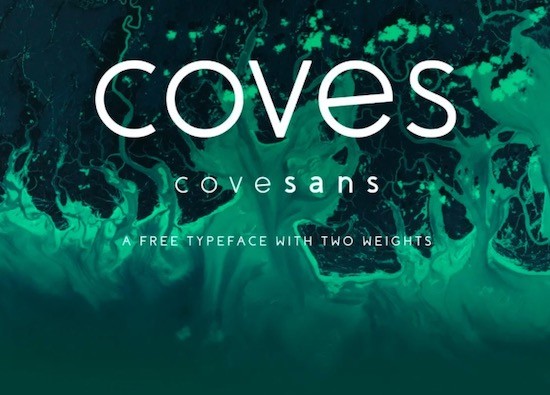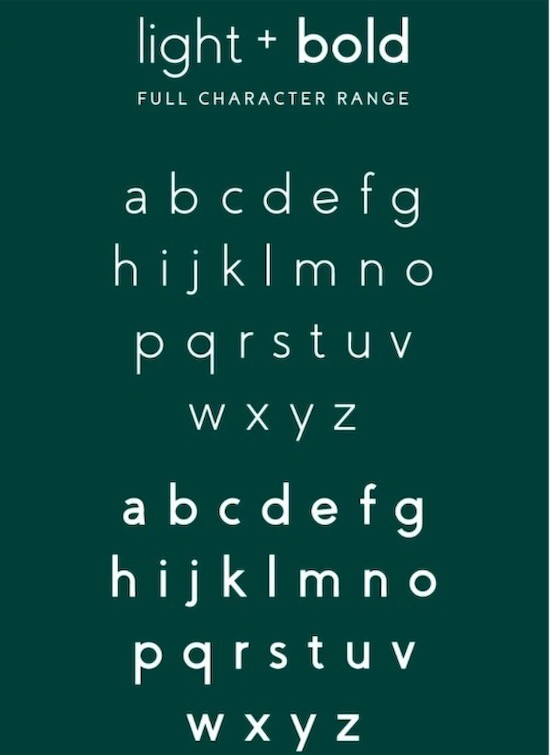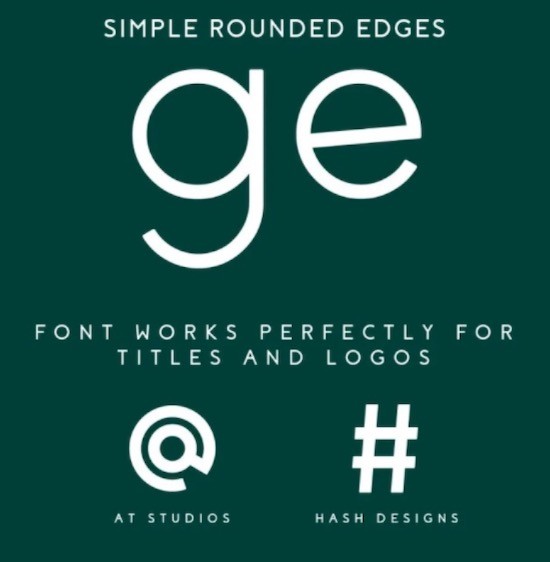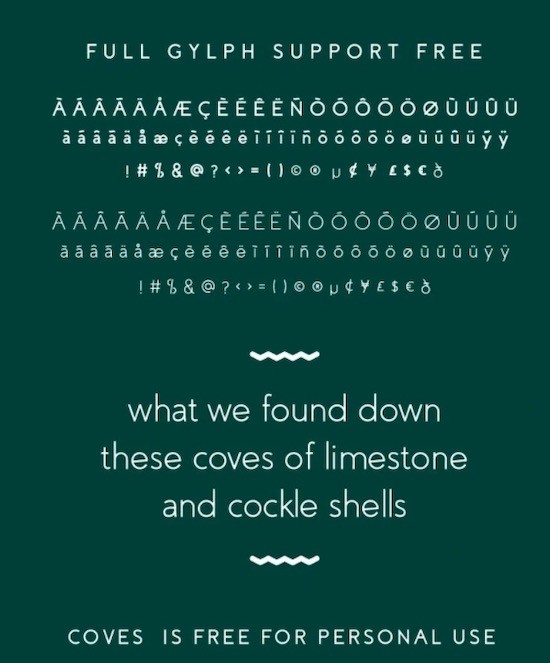
Coves Font
by Jack Harvatt
Coves font is a famous sans serif typeface. It’s a modern neat and clean typeface that been passionately designed for you and your colleague. This font is a gorgeous design tool for those looking for a perfect font with high legibility.
Coves font is a popular typeface and it has got too much popularity in no time. This font was created and released by Jack Harvatt with 2 unique weights are bold and light.
Coves font is very suitable for use with luxury, elegant, and premium needs such as restaurants, salons, cafes, hotels, and so on.
Coves Sans Serif Font